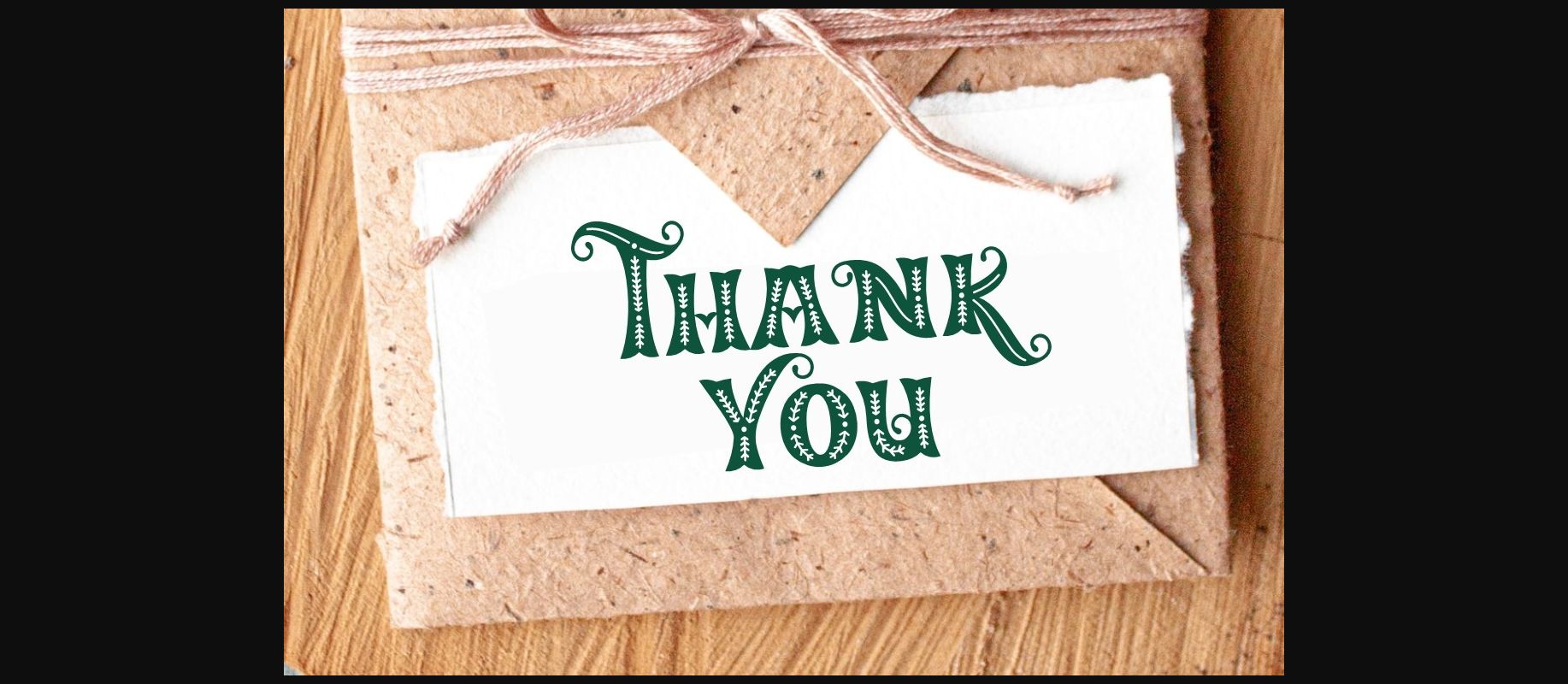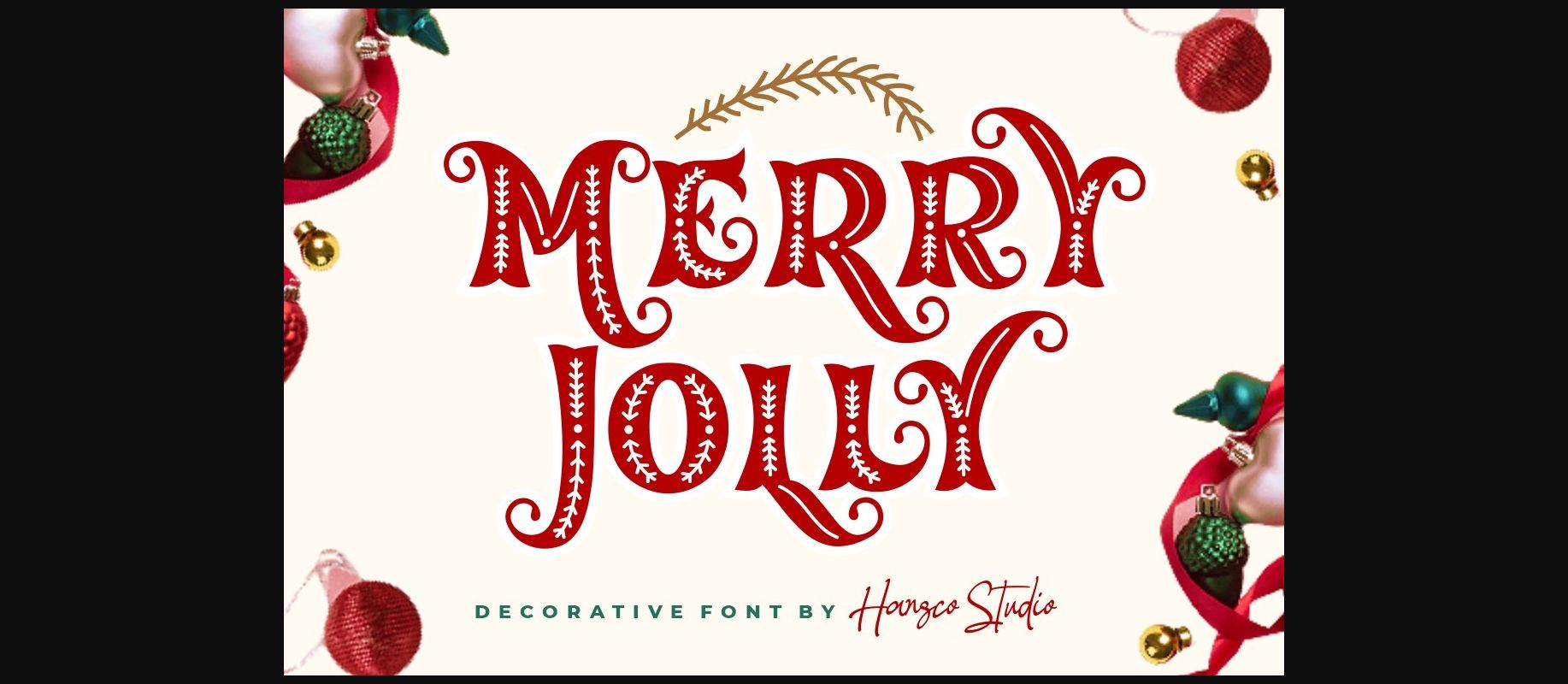
About Merry Jolly Font
Merry Jolly is a cool and retro styled decorative font. Use this font to add that special touch to any design idea you can think of!